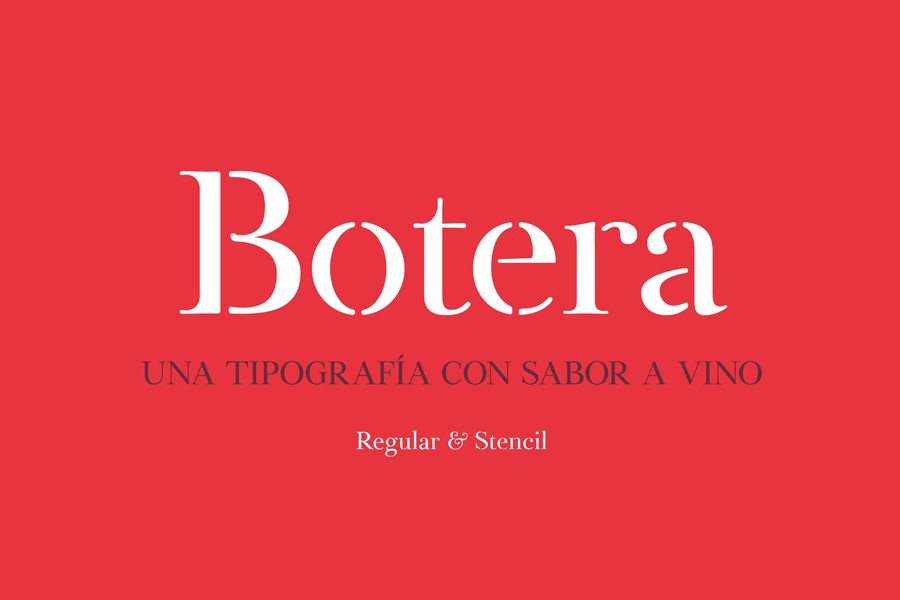
Botera – Free Stencil Serif Font
Botera is a typographic project created by Javi Montoya for a wine brand. It is very well designed stencil serif font and perfect for creating luxury beverage labels like for example whisky, beer, wine, … The font comes in two weights – regular and stencil including 278 characters (uppercase, lowercase, alternative characters, ligatures, decimal and old numbers, punctuation marks and some pictograms related to the world of wine). The free font is created and provided by Javi Montoya and you just need to pay with a tweet to download it for free.